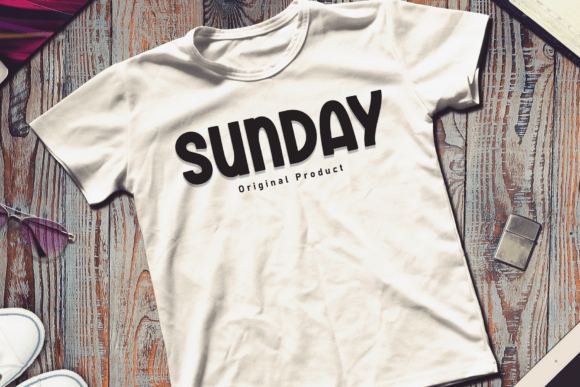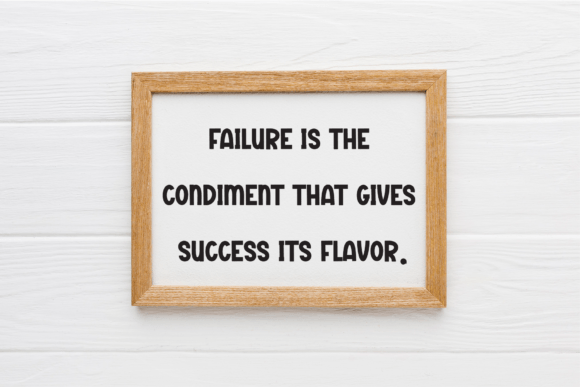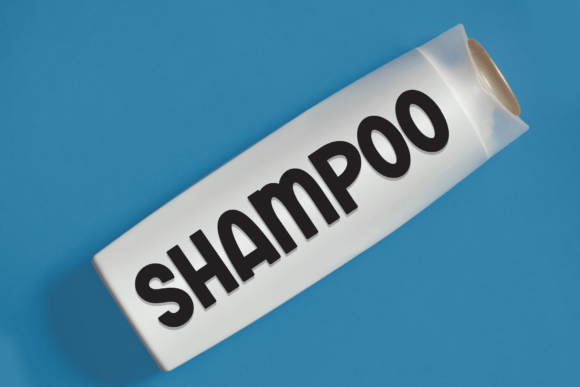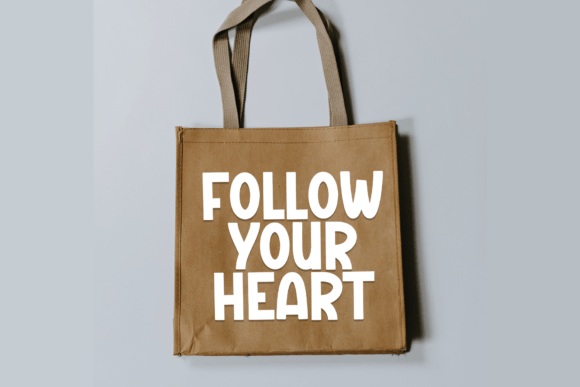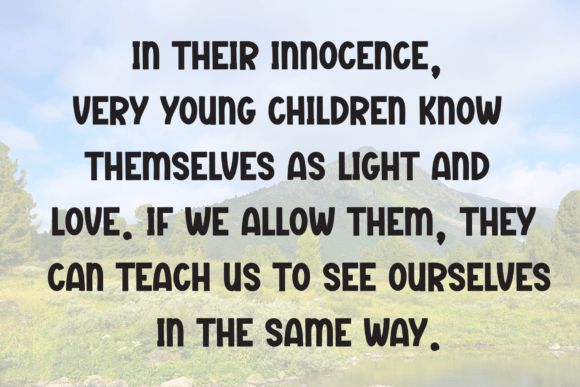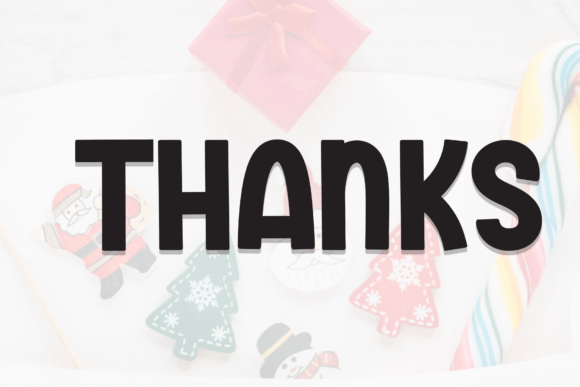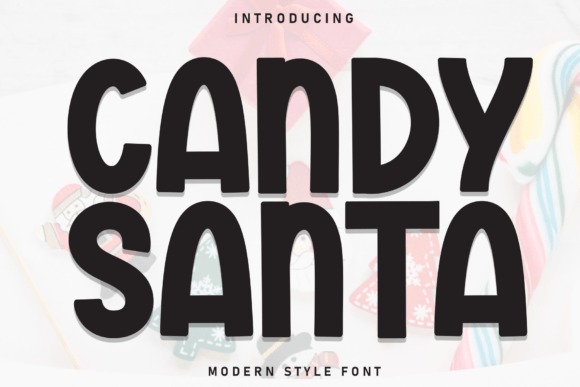
Candy Santa Font: A Sweet and Friendly Display Font for Your Designs
Are you looking for a font that can add a touch of sweetness and friendliness to your designs? Look no further than the Candy Santa Font! This display font is perfect for designers and crafters who want to create unique and eye-catching projects. In this article, we’ll take a closer look at the Candy Santa Font, its features, and how you can use it to take your designs to the next level.
What is Candy Santa Font?
Candy Santa Font is a sweet and friendly display font that is perfect for a wide range of designs. Its natural and unique style makes it incredibly fitting for various projects, from holiday-themed designs to everyday crafts. The font’s playful and whimsical feel makes it ideal for designers and crafters who want to add a personal touch to their work.
Key Features of Candy Santa Font
• Unique and Natural Style: The Candy Santa Font has a one-of-a-kind style that sets it apart from other fonts. Its natural and effortless feel makes it perfect for designs that require a personal touch.
• Sweet and Friendly: The font’s sweet and friendly tone makes it perfect for holiday-themed designs, children’s projects, and other applications where a playful feel is desired.
• Versatile: The Candy Santa Font is incredibly versatile and can be used for a wide range of designs, from paper crafts to digital projects.
• Easy to Read: Despite its playful feel, the Candy Santa Font is easy to read, making it perfect for designs that require a clear and concise message.
How to Use Candy Santa Font in Your Designs
The possibilities are endless when it comes to using the Candy Santa Font in your designs. Here are a few ideas to get you started:
• Holiday-themed Designs: Use the Candy Santa Font to create festive holiday-themed designs, such as Christmas cards, Halloween decorations, and Easter eggs.
• Paper Crafts: The font is perfect for paper crafts, such as scrapbooking, card making, and origami.
• Digital Projects: Use the Candy Santa Font in digital projects, such as social media graphics, blog posts, and website headers.
• Children’s Projects: The font’s playful feel makes it perfect for children’s projects, such as children’s book illustrations, nursery decor, and kids’ party invitations.
Tips and Tricks for Using Candy Santa Font
Here are a few tips and tricks to help you get the most out of the Candy Santa Font:
• Experiment with Colors: The Candy Santa Font looks great in a variety of colors, so don’t be afraid to experiment and find the perfect hue for your design.
• Use it with Other Fonts: The font pairs well with other fonts, so try combining it with other fonts to create a unique and eye-catching design.
• Play with Size and Style: The Candy Santa Font looks great in a variety of sizes and styles, so experiment with different sizes and styles to find the perfect fit for your design.
In conclusion, the Candy Santa Font is a sweet and friendly display font that is perfect for designers and crafters who want to add a personal touch to their work. Its unique and natural style makes it incredibly versatile, and its playful feel makes it perfect for a wide range of designs. With its ease of use and endless possibilities, the Candy Santa Font is a must-have for any designer or crafter looking to take their designs to the next level.